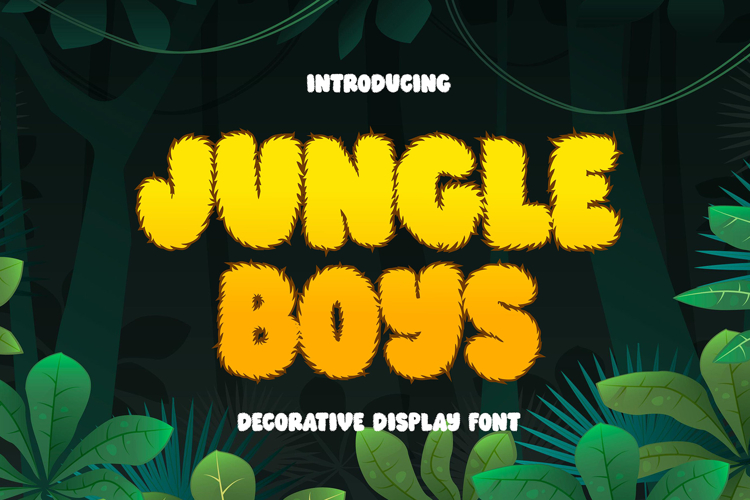
Jungle Boys | Decorative Display Font | Feather Texture
Jungle Boys is a bold, decorative display font made to dominate attention. Designed with Allcaps Characters, its wild, fur-like strokes give a primal and playful feel—perfect for projects that need to shout with confidence. Whether you're crafting poster titles, YouTube thumbnails, comic headers, or digital adventures, Jungle Boys brings a fresh and untamed vibe to your layout.
Wild and Playful: Best Display Font for Loud Designs Seeking a decorative font that instantly captivates your viewer? Jungle Boys delivers a fun, jungle-inspired texture with bold readability. This Allcaps display typeface is ideal for creative campaigns, gaming visuals, product packaging, and even children’s media content. No matter the platform, this font keeps your headlines roaring with character.
Multilingual Support Included Jungle Boys doesn't just shout—it speaks many languages. With Multilingual Support, you can confidently use this font in international projects without sacrificing style. Expand your reach while maintaining cohesive and unforgettable visuals.
Key Features
- Allcaps Decorative Style with jungle-inspired texture
- Multilingual Support included
- 2 Styles: Regular & Italic
- Ideal for posters, thumbnails, comics, and playful branding
- Optimized for maximum visual impact and legibility
Why Designers Love Jungle Boys Designers love Jungle Boys font for its one-of-a-kind look that blends quirky and powerful in one package. Its fluffy, high-impact strokes make it a favorite for loud headlines and expressive design. It adds a fun-but-strong personality to any visual—something not easily replicated by generic fonts.